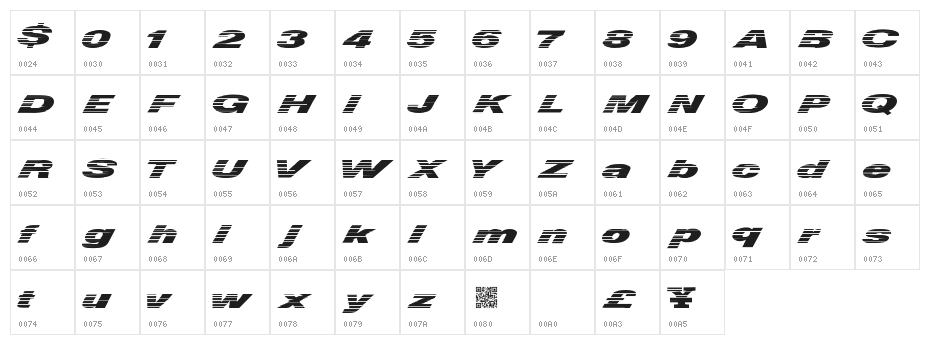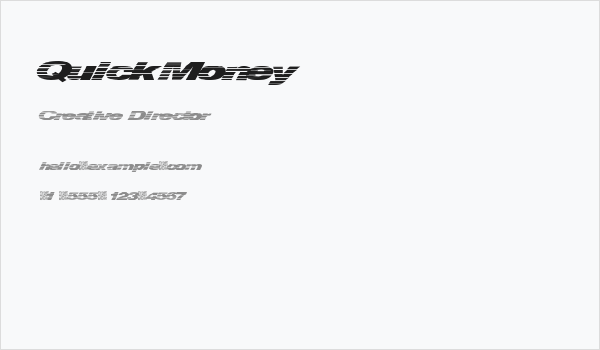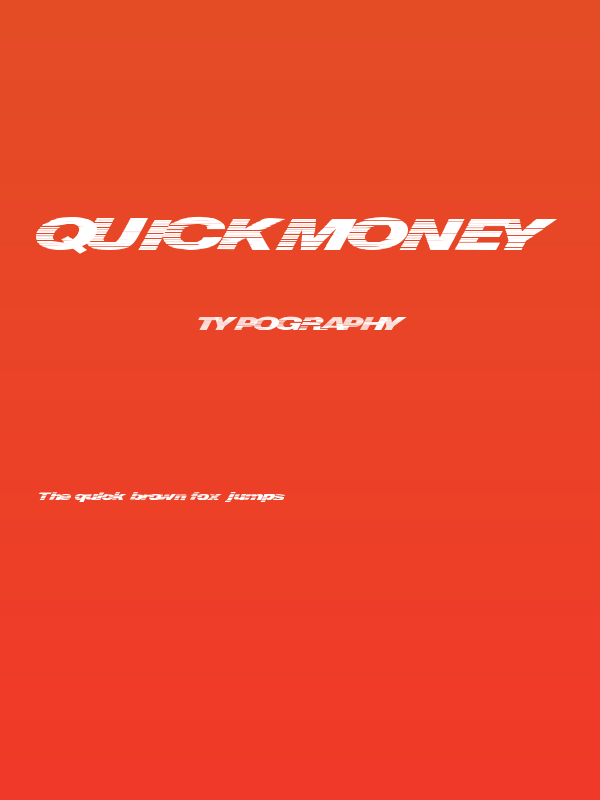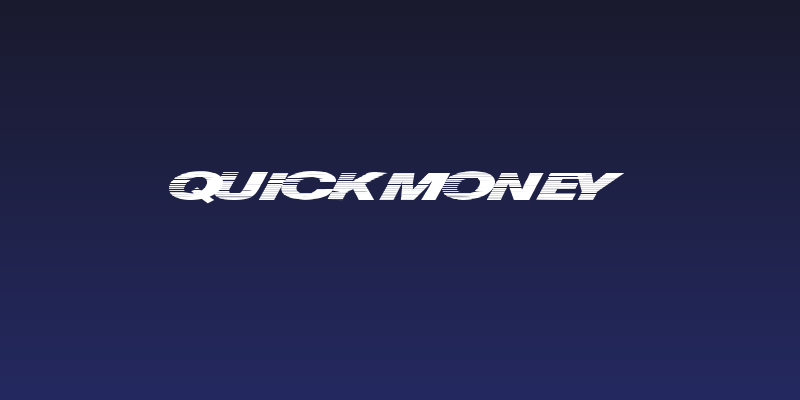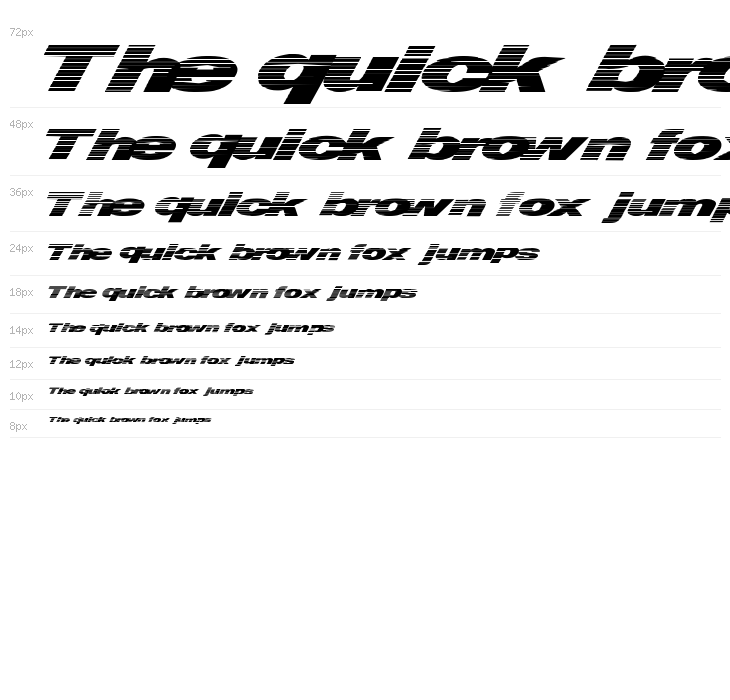
QuickMoney Font
This font features a bold, italicized style with a distinct slanted and striped design, giving it a dynamic and fast-paced appearance. The characters are wide and have a strong presence, making them highly visible and impactful. The horizontal stripes within each letter add a sense of movement and speed, reminiscent of racing or high-energy environments. The font maintains a consistent weight throughout, with medium contrast in stroke thickness. Its unique style is both modern and decorative, suitable for projects that require a sense of urgency or excitement.
| Overall Style | Modern, Decorative |
| Proposed Projects | Ideal for sports branding, automotive advertisements, dynamic posters, and event promotions. |